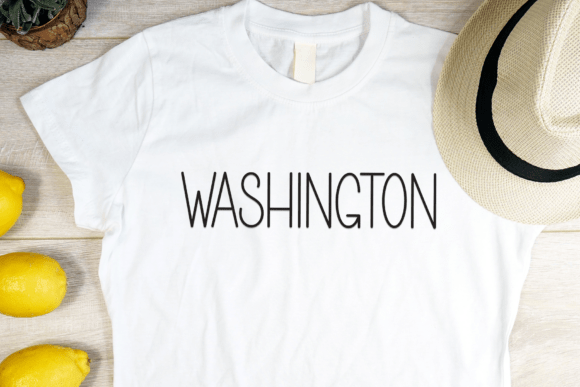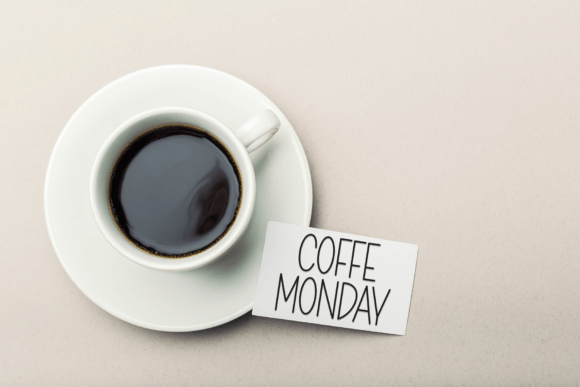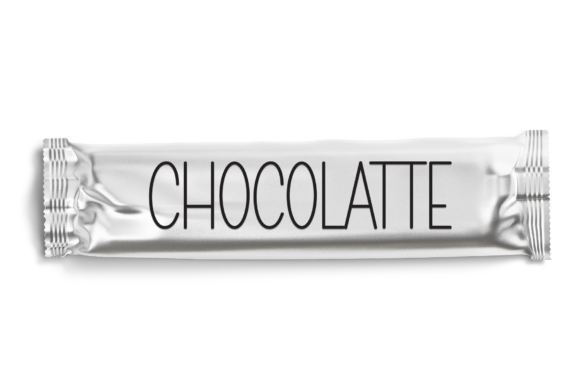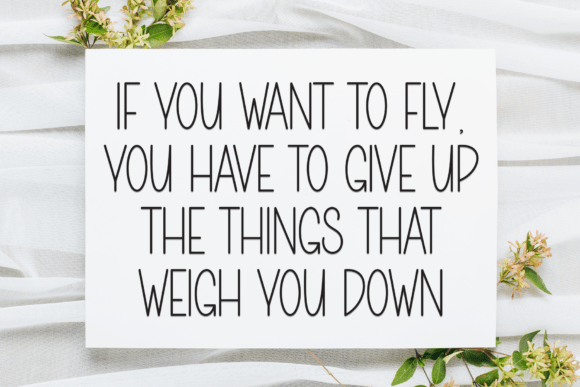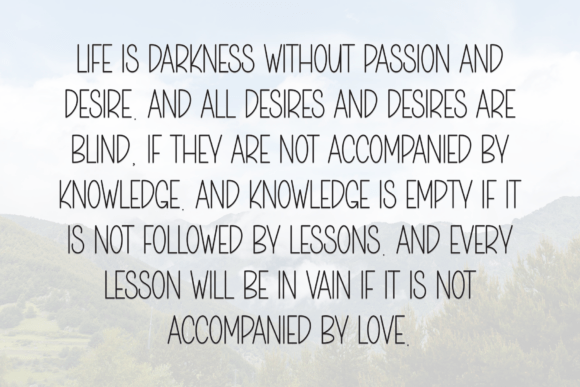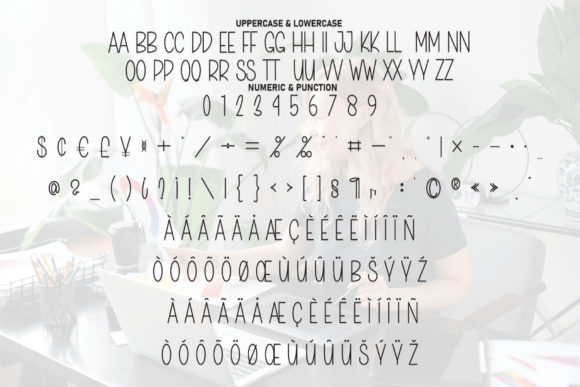
The Perfect Blend of Style and Readability: Designer Font
You know that feeling when you’re working on a design project and you just can’t seem to find the right font to bring it all together? The words feel cluttered, the message gets lost, and you’re left wondering what you’re missing. This is where the Designer Font comes in – a neat and casual display font that’s designed to make your life easier.
With its clean lines and friendly letterforms, the Designer Font is perfect for headlines, posters, packaging, and branding that needs to feel modern yet laid-back. Whether you’re a seasoned designer or just starting out, this font is a valuable addition to your toolkit – it brings personality to any project without overwhelming the message.
Key Features of Designer Font
- Unique Characteristics: The font features a unique blend of modern and classic design elements, with a focus on elegance and sophistication.
- Font Weight: The font is available in three weights: Light, Regular, and Bold, allowing designers to achieve a range of visual effects.
Designer Review: “Designer Font”
Overall, I think “Designer Font” has some great qualities that make it a solid choice for designers, but it also has some limitations that might hold it back from being a top contender. Let’s dive in and explore what works well and what doesn’t.
What Works Well: ✨
- Beautiful typography: “Designer Font” has some gorgeous typography options that will make your designs stand out. The font is well-designed and looks great at various sizes.
- High level of customization: You can customize almost every aspect of the font, from the color to the style, making it a great choice for designers who want to add a personal touch to their work.
- Limited language support: Unfortunately, “Designer Font” only supports a limited number of languages, which might be a problem for designers who need to create content in multiple languages.
- Not ideal for small text: While the font looks great at larger sizes, it can be a bit difficult to read at smaller sizes, which might make it less suitable for designers who need to create small text.
Overall, I think “Designer Font” is a solid choice for designers who need a beautiful and customizable font. While it has some limitations, it’s still a great option to consider. Just be aware of the limitations before making a decision.
Tips for Getting the Most Out of Designer Font
Use Designer Font to add a touch of elegance to your designs.
Combine Designer Font with other fonts to create a unique and eye-catching look.
Use Designer Font for:
Business cards and brochures.
Branding and marketing materials.